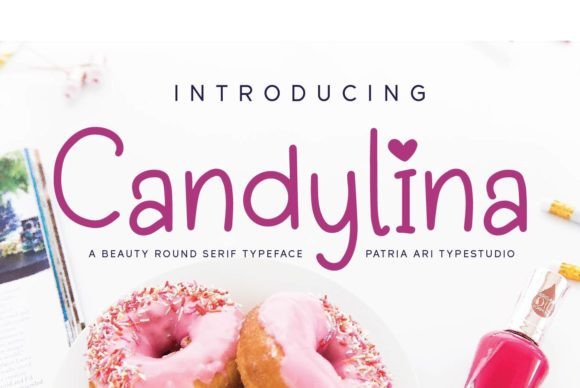
Are you looking for a font that is both fun and sophisticated? Look no further than Candylina Font, a captivating sans serif font designed by P4tcreativa. This elegant and versatile font is perfect for a wide range of projects, from wedding invitations to birthday cards to personal branding.
With its playful curves and delicate strokes, Candylina Font will add a touch of charm to any project. It is also incredibly easy to read, making it a great choice for both body text and headlines.
* It is perfect for creating eye-catching designs that will stand out from the crowd.
* It is incredibly versatile and can be used for a wide range of projects.
* It is easy to read and understand, making it a great choice for both body text and headlines.